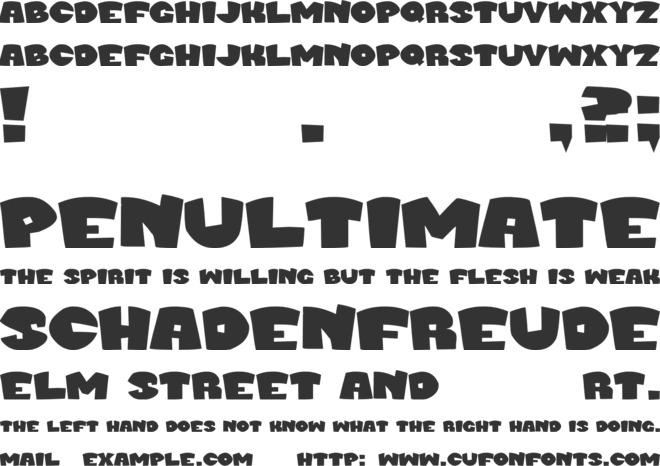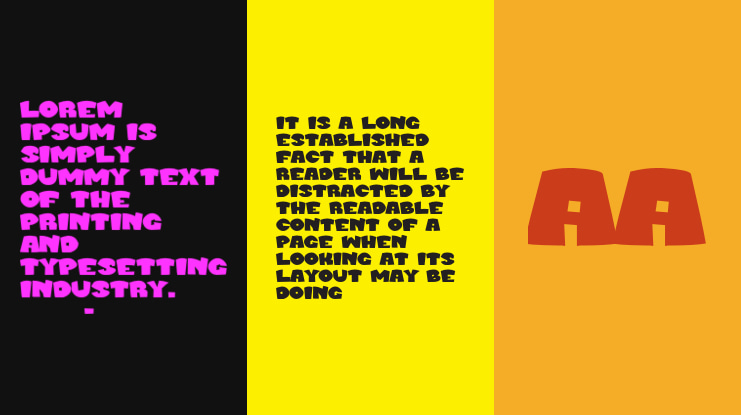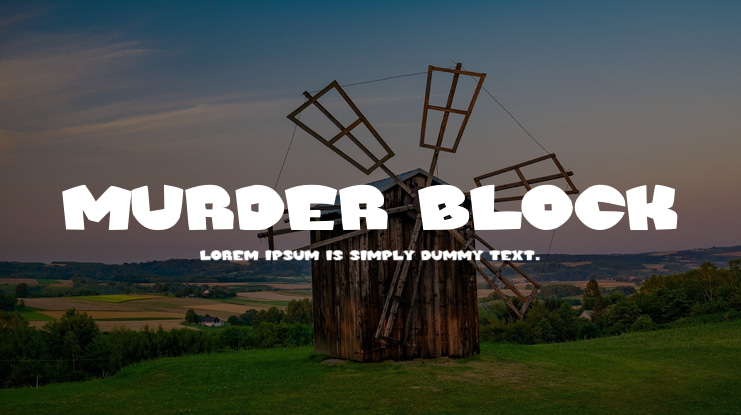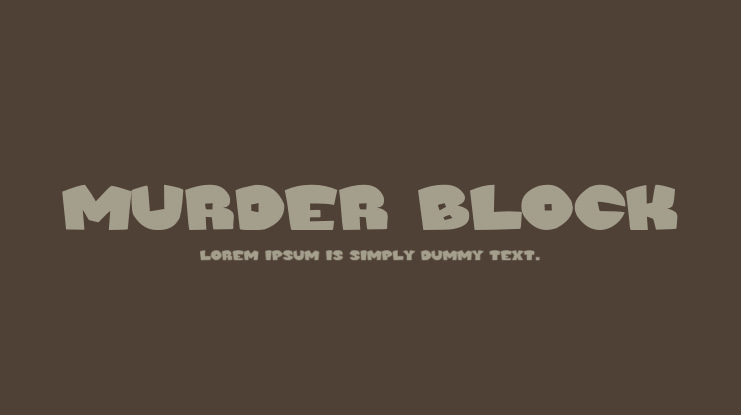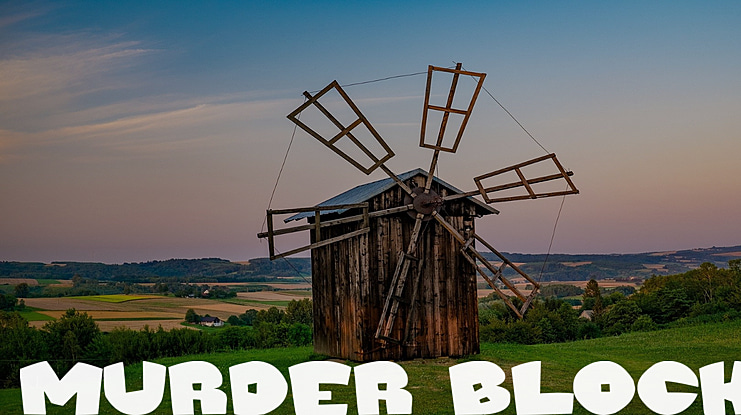
Murder Block Font
An obscenely fat, cartoony typeface. Only available in capitals (majiscules) with simple punctuation. Looser tracking is possibly needed for legibility purposes, in the case of certain color combinations. Created in Adobe Illustrator.